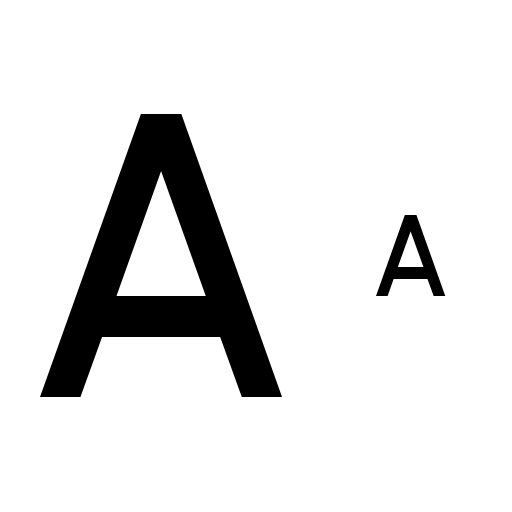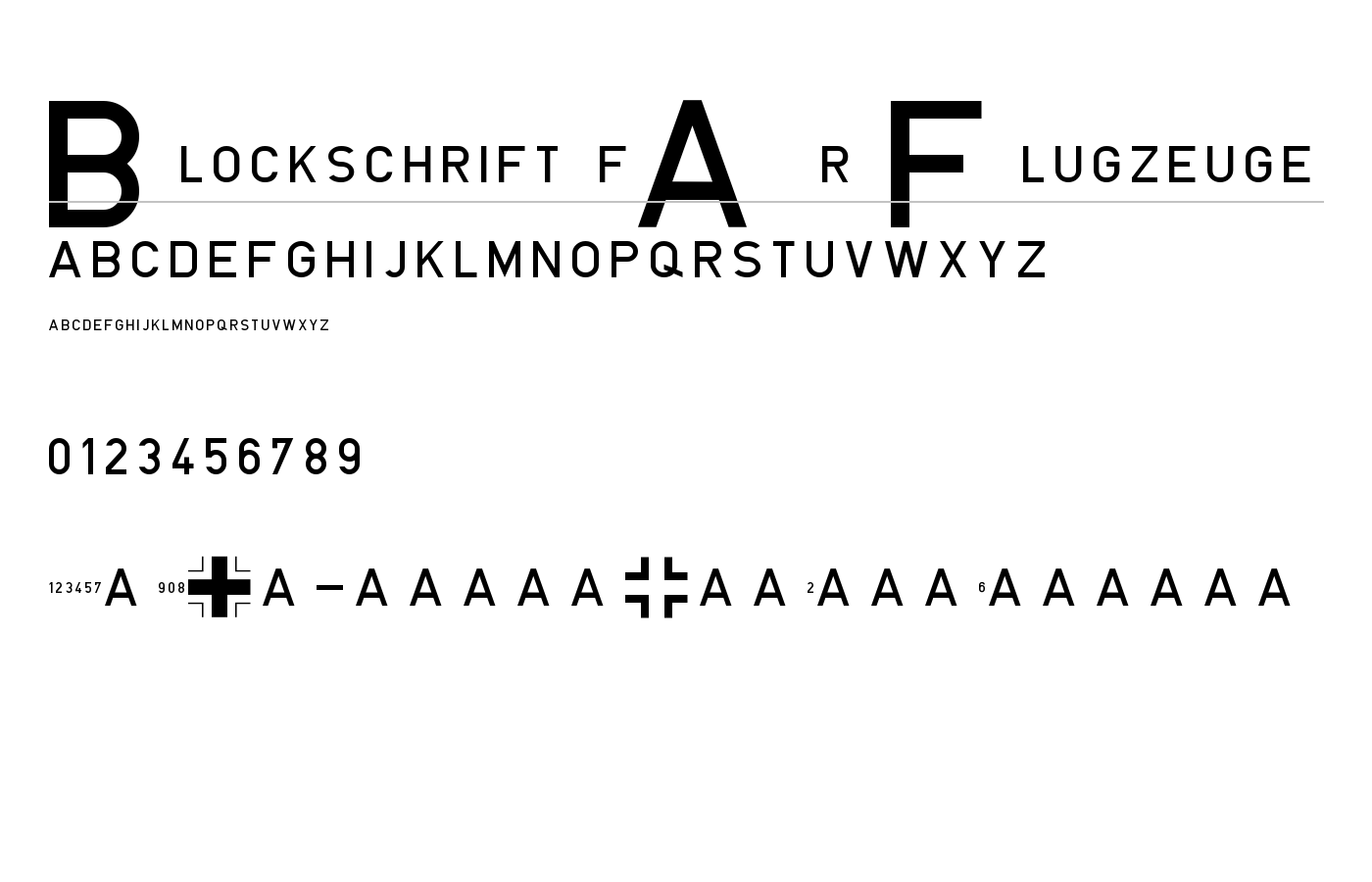
Blockschrift für Flugzeuge is a clean, monospaced sans serif font with a technical, industrial feel, designed for high readability and clarity. Its uniform stroke weight, tall x-height, and simple geometric shapes create an efficient and utilitarian appearance, making it ideal for labeling, technical documents, or signage where legibility is critical. This font works best in contexts that require a precise, modern style such as aviation, engineering, or coding environments.
Blockschrift für Flugzeuge Font